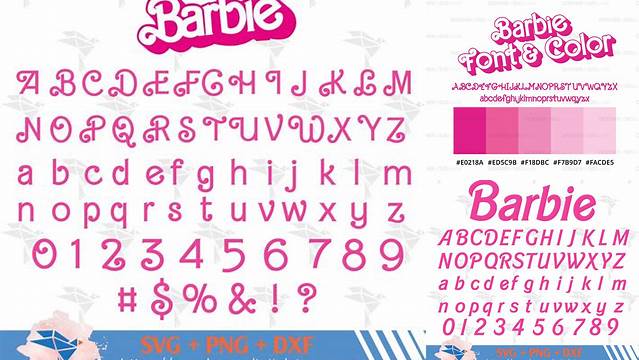
Barbie Font: Cricut Design Guide
Hey there, design enthusiasts! Are you looking to add a touch of Barbie magic to your Cricut projects? You're in the right place! In this article, we'll dive deep into everything you need to know about using the Barbie font on Cricut Design Space. From finding the perfect font to installing it and using it in your projects, we've got you covered. Whether you're creating personalized birthday cards, dazzling party decorations, or unique apparel, incorporating the iconic Barbie font will undoubtedly bring a playful and nostalgic flair to your creations. So, grab your Cricut machine, fire up Design Space, and let’s get started!
Finding the Perfect Barbie Font
The first step in your Barbie-themed Cricut adventure is finding the right font. Now, here’s the thing: there isn't an officially licensed "Barbie font" that you can just download. What we're looking for are fonts that capture the essence of the Barbie brand – think bubbly, stylish, and a little bit retro. Several fonts mimic the distinctive Barbie aesthetic, and they're readily available online. Sites like DaFont, FontSpace, and Creative Fabrica are goldmines for finding fonts that resemble the Barbie style. When browsing these sites, use keywords like "bubble font," "script font," "girly font," or "retro font" to narrow down your search. Pay close attention to the font previews and choose one that resonates with the iconic Barbie logo and overall brand image. Keep in mind that while many fonts are free for personal use, commercial use might require a license, so always check the terms and conditions before incorporating a font into projects you intend to sell.
Using the Barbie Font in Cricut Design Space
Alright, you've got your Barbie-inspired font installed and ready to go. Now comes the fun part: actually using it in your Cricut projects! Here’s a step-by-step guide to incorporating your new font into your designs.
- Find Your Barbie Font: Scroll through the font list or use the search bar to find the Barbie-esque font you installed. If you can’t remember the exact name, try searching for keywords like "bubble," "script," or "retro."
- Apply the Font: Once you find your font, click on it to apply it to your text. Watch as your plain text transforms into a Barbie-inspired masterpiece!
And there you have it – a complete guide to using the Barbie font on Cricut Design Space! By following these steps, you can easily add a touch of Barbie magic to all your crafting projects. So go ahead, unleash your creativity, and let the Barbie font inspire your next masterpiece. Happy crafting, everyone!